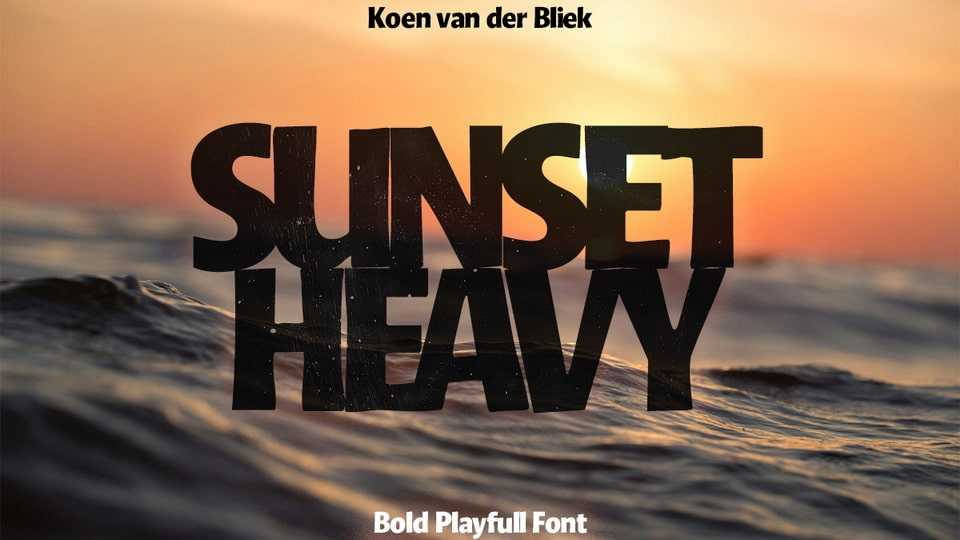
Download Sunset Heavy font, a display typeface with the solidly grounded letterforms, thick stems, short extenders, and subtly rounded corners that give a warm and welcoming feel.
Designer: Koen van der Bliek